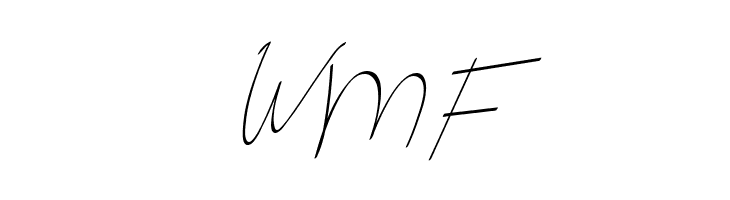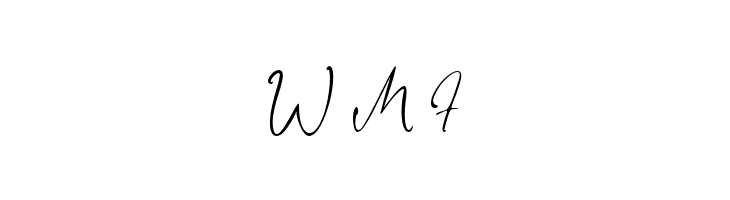
( Fonts by Staircase Studio )
Elegant, handwritten script with connected, flowing strokes.
( Fonts by Nabila )
Expressive, sketchy handwritten script with tall, angular forms.
( Fonts by Vztype Studio )
A graceful, handwritten script font with flowing, connected strokes.